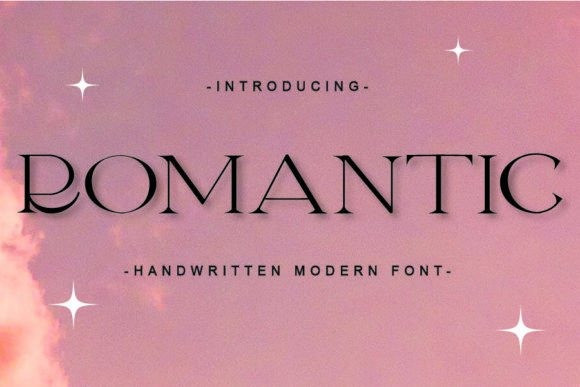
Romantic Serif Font
Romantic Serif Font a bold and cool serif font that looks both modern and futuristic. Add this font to your creative ideas, and see how it stands out and looks perfect for your project!